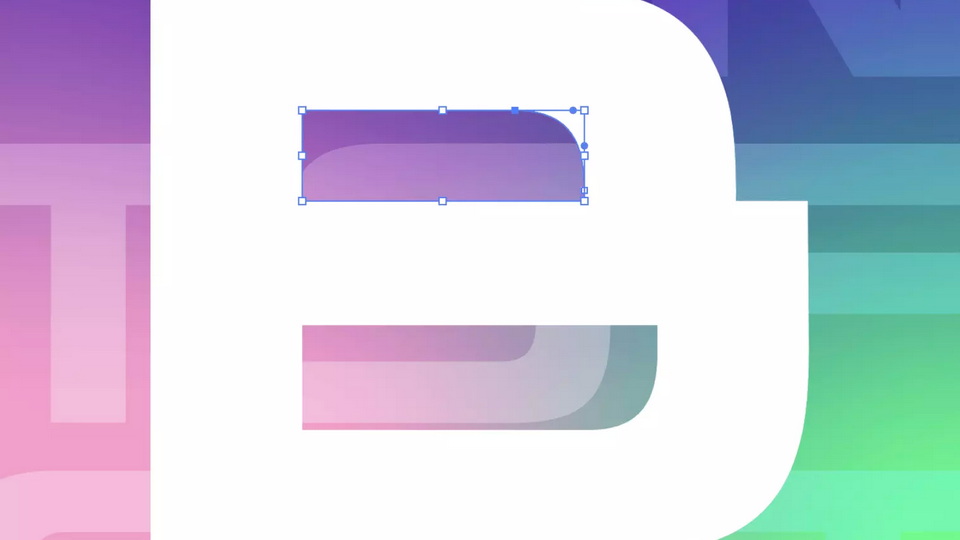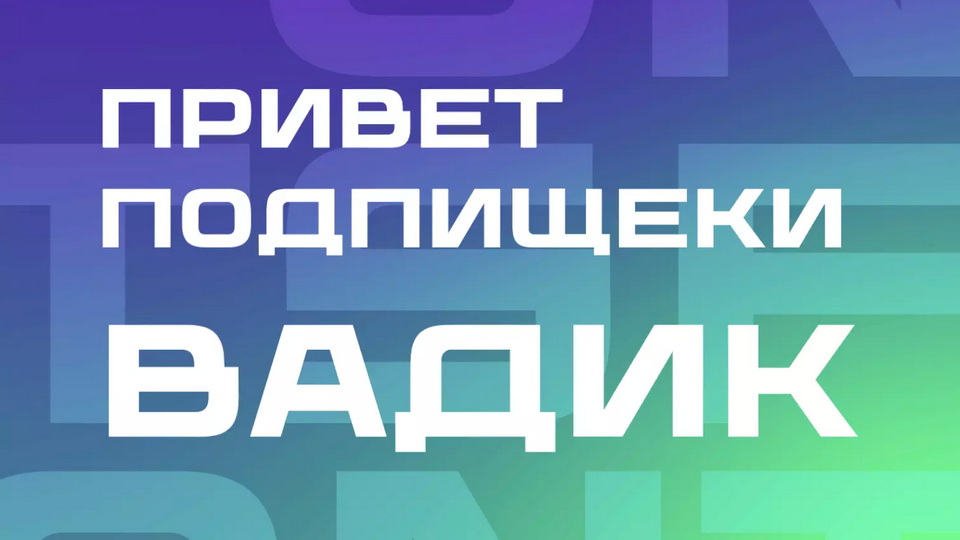
Wadik is a heavy and massive display font with wide characters, which is great for creating logos and headings. The font name is inspired by its width (wide – Wadik).
The typeface includes Cyrillic, Latin and basic character set in a single style.